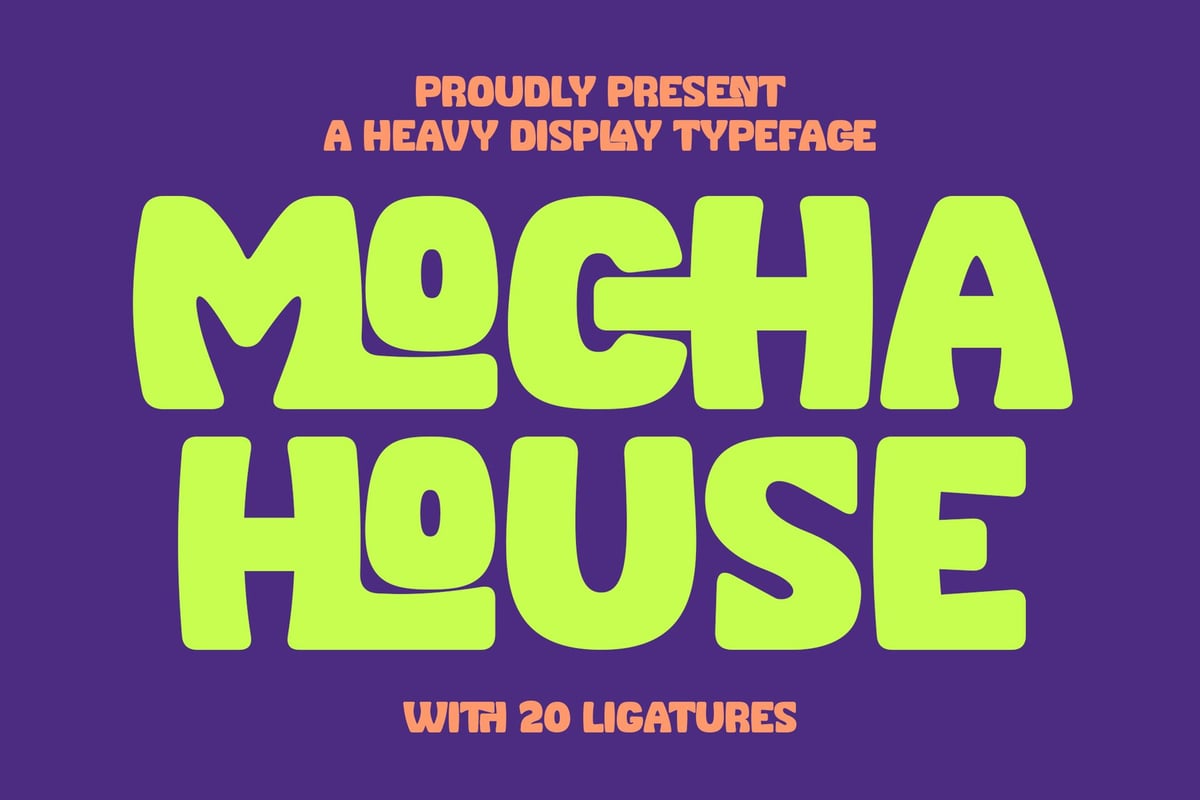
Mocha House - Food Font
Energize your designs with Mocha House - a bold, chunky display font that delivers serious visual punch with a playful personality. This heavy display typeface combines smooth curves with quirky character forms to create a modern retro vibe that's both impactful and approachable. The chunky shapes and friendly feel make it perfect for brands that want to stand out while staying welcoming. In Package: OTF TTF WOFF WOFF2 Features: Uppercase Lowercase Ligatures Numerals Punctuation Easy To Install ...